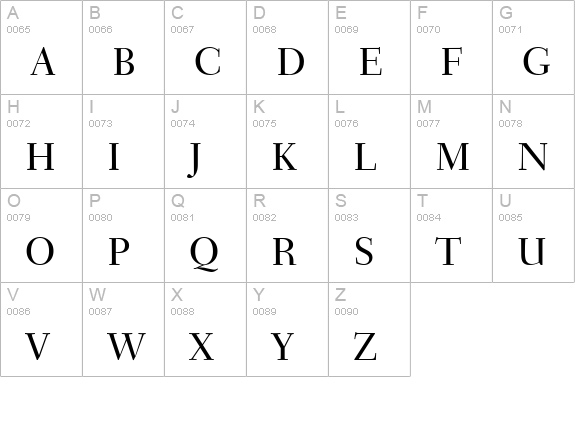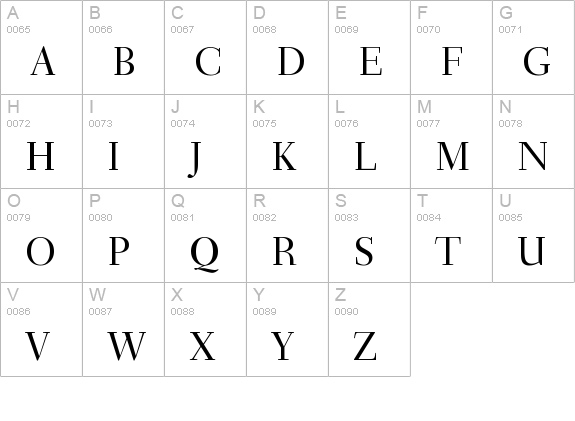
Transit Normal Font Details
Transit Normal is the standard, neutral variant in the Transit typeface family \xE2\x80\x94 well suited to general body text, paragraphs, and standard typographic work.
Transit Normal font is a sleek and modern typeface that exudes elegance and sophistication. Its clean lines and balanced proportions make it a versatile choice for a wide range of design projects. Whether you're creating a logo, designing a website, or crafting a magazine layout, Transit Normal font will add a touch of professionalism and style. The font's smooth curves and sharp edges create a harmonious balance that is visually appealing and easy to read. Its neutral yet distinctive design ensures that your message will be conveyed with clarity and impact. The versatility of Transit Normal font allows it to adapt seamlessly to various design styles, making it suitable for both contemporary and traditional aesthetics. What sets Transit Normal font apart is not only its remarkable aesthetics but also its accessibility. It is freely available to download at FontsMarket.com, making it an excellent choice for designers on a budget or anyone looking for high-quality fonts without breaking the bank. With just a few clicks, you can enhance your creative projects with this exceptional font. Transit Normal font is the perfect choice for those who value both style and functionality. Its timeless design and broad range of applications make it a reliable and go-to font for designers worldwide. Whether you're designing a logo for a corporate brand, creating a professional presentation, or crafting eye-catching headlines, Transit Normal font will elevate your designs to new heights. Download it for free today at FontsMarket.com and let your creativity soar.